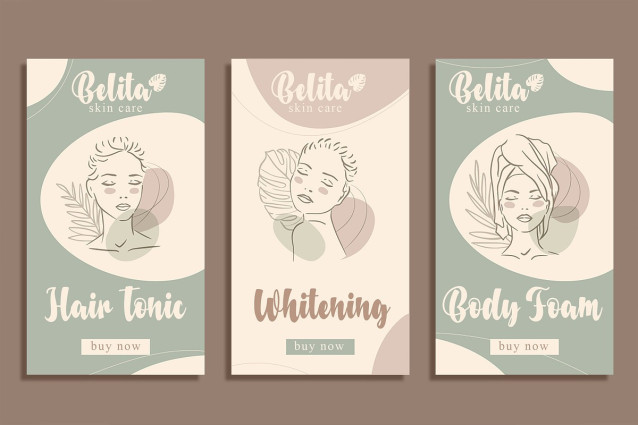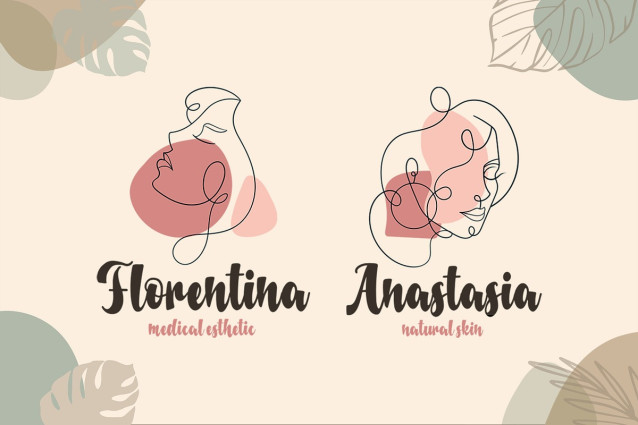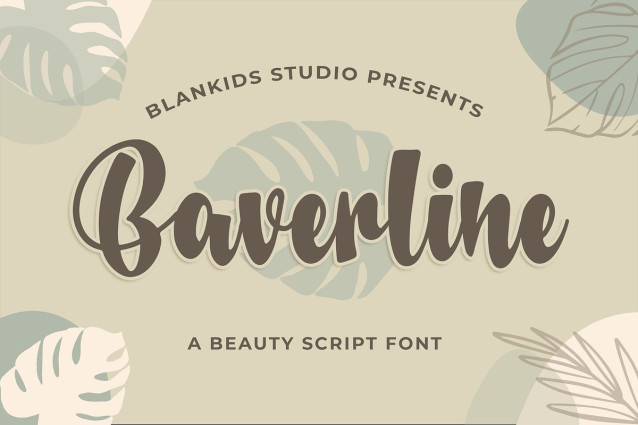
Baverline Font
Baverline Font a Beauty Script Font, Inspiring from beauty calligraphy style. This font is perfect for a design that makes it more attractive and playful. made with a very good level of aesthetics making this font suitable for book cover, poster, packging, merchandise, logotype and much more.